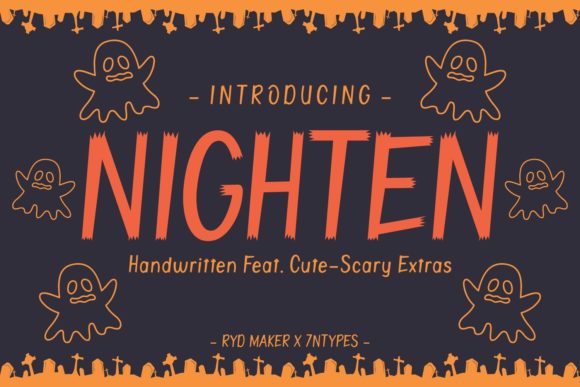
Welcome to the enchanting world of Nighten, a captivating display font that will ignite your creativity and evoke the vibrant spirit of autumn. Step into a realm where typography transcends mere words and becomes an exquisite tapestry woven with emotions and imagination.
Nighten is more than just a font; it is an artistic masterpiece that dances upon the digital canvas. Its meticulously crafted brushstrokes imbue each letterform with a raw, organic energy, as if nature herself had breathed life into every curve and stroke. Immerse yourself in a world where typography whispers tales of rustic charm and whispers of golden leaves swirling in the crisp autumn breeze.
With Nighten, you hold the key to unlocking a treasure trove of creative possibilities. Whether you seek to weave enchanting invitations that capture the magic of a woodland wedding or craft captivating posters that evoke the nostalgic warmth of a cozy campfire, Nighten will guide your imagination, transforming your words into works of art.
This extraordinary font is a virtuoso of versatility, effortlessly adapting to a myriad of designs. Its bold, attention-grabbing presence commands attention on social media platforms, making it the perfect choice for eye-catching headlines and captivating captions that will leave a lasting impression on your audience. Unleash your inner artist and let Nighten elevate your digital presence to new heights of creativity and engagement.
Join the ranks of discerning designers and typographers who have discovered the allure of Nighten. Let its captivating brushstrokes ignite your imagination and elevate your creative endeavors to new realms of brilliance. As the leaves of autumn paint the world in vibrant hues, embrace the enchanting spirit of Nighten and unlock a world where typography becomes an art form, expressing emotions and igniting imaginations.